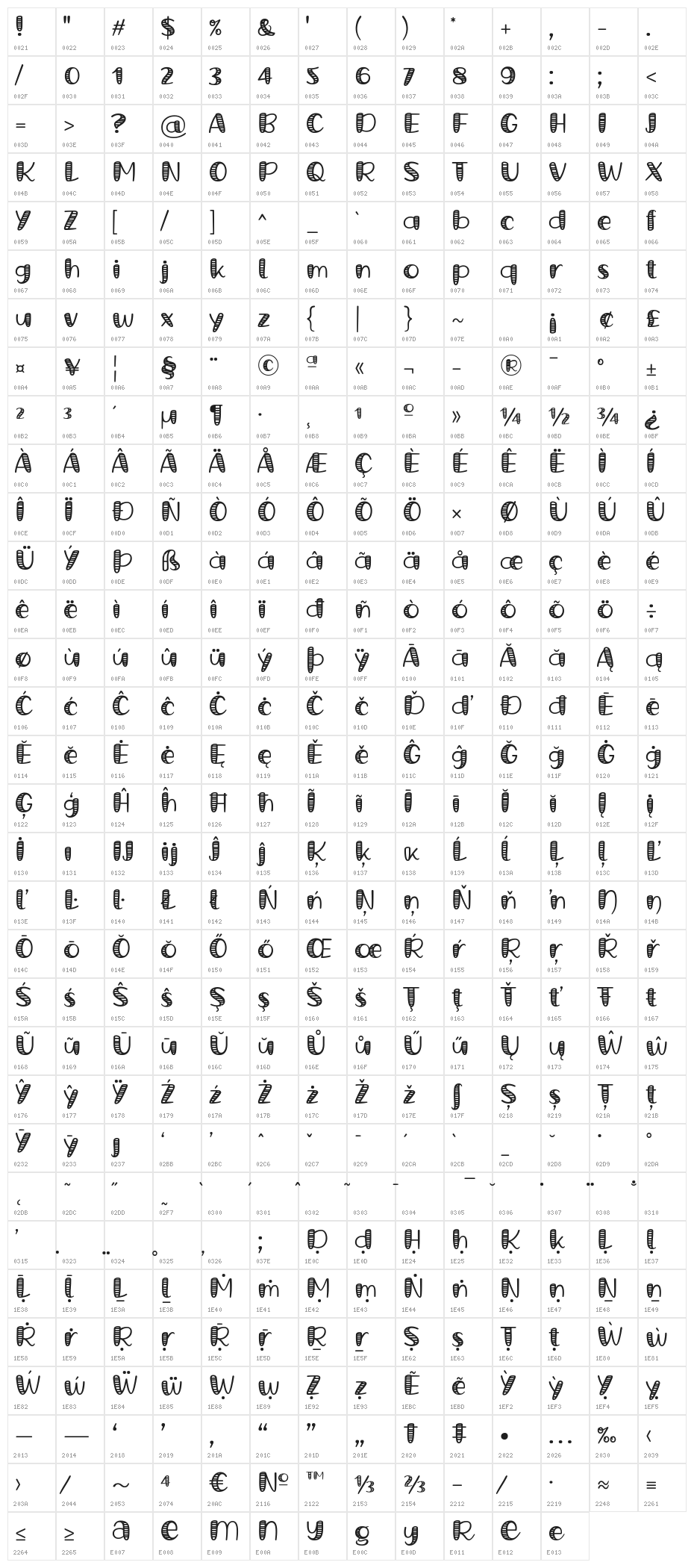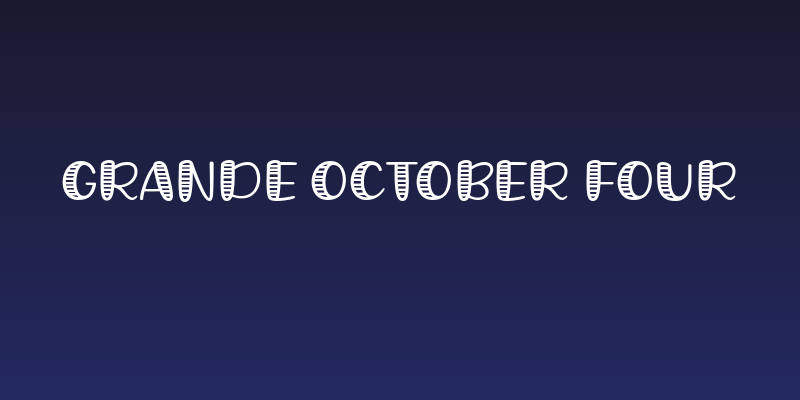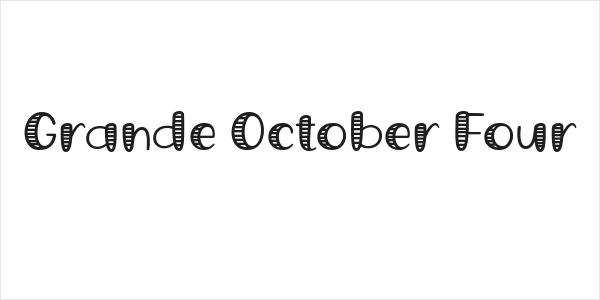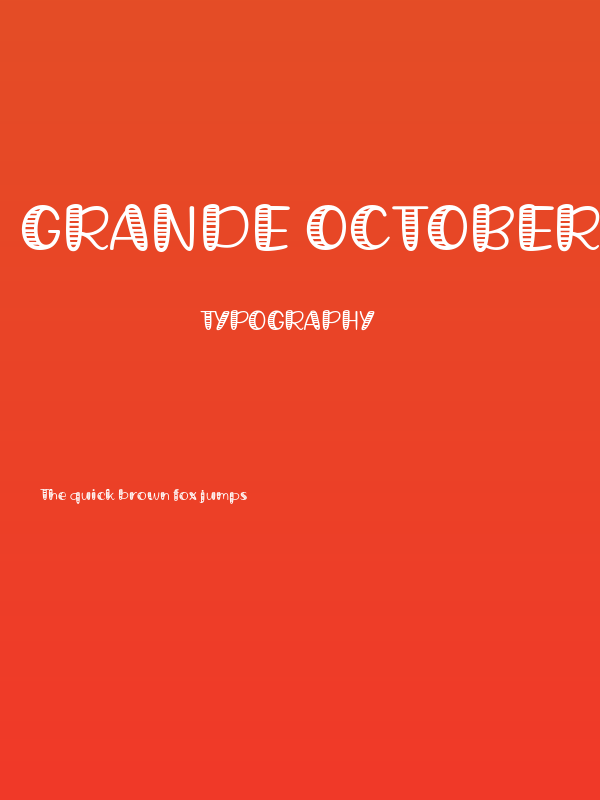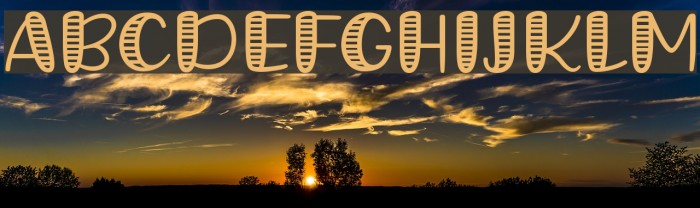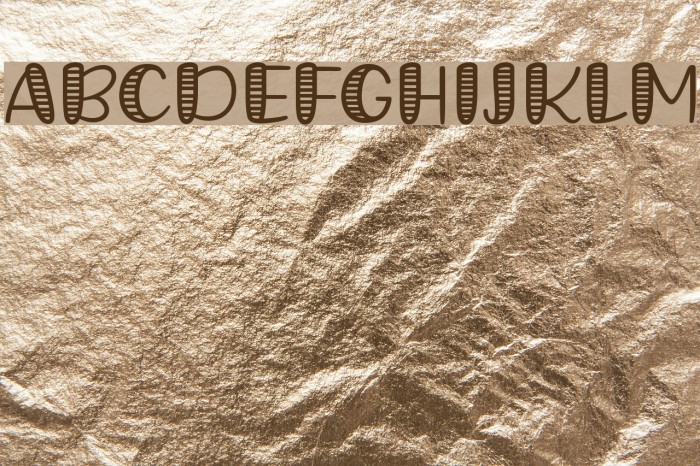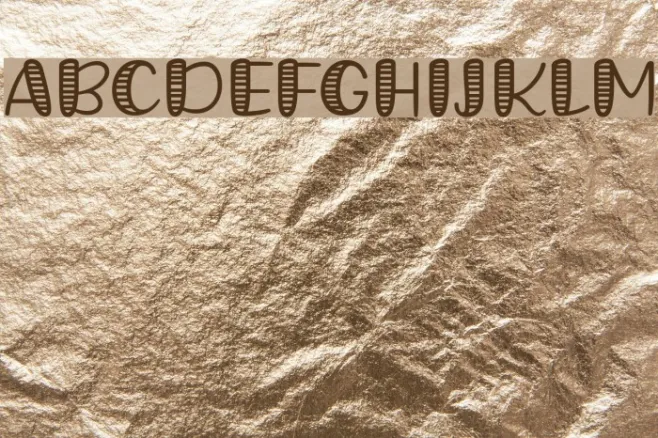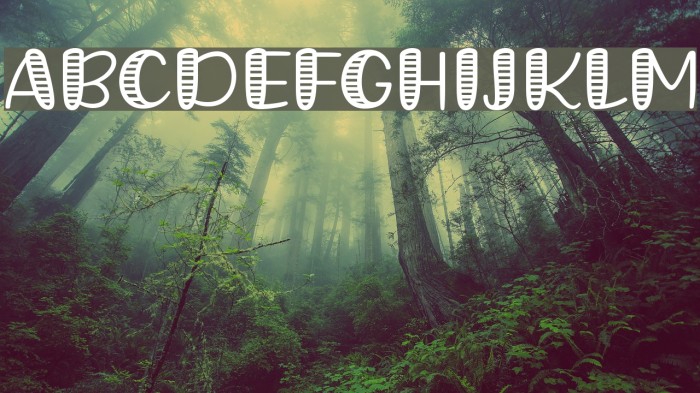
Grande October Four Font
Grande October Four Description
This playful and decorative font features a unique striped pattern within each character, giving it a whimsical and eye-catching appearance. The letters are rounded and bold, with a consistent stroke width that adds to its charm. The uppercase and lowercase letters maintain a cohesive style, while the numerals and special characters complement the overall design. This font is perfect for projects that require a fun and engaging typeface, such as children's books, party invitations, or playful branding materials.
| Overall Style | Playful, Whimsical |
| Proposed Projects | Ideal for children's books, party invitations, playful branding, and creative posters. |